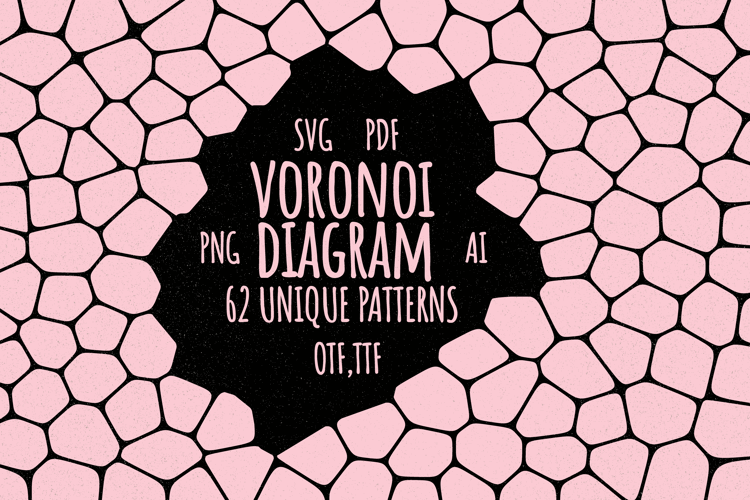
Voronoi Diagram Font
🎨 Font Name: Voronoi Diagram by Minimalist Art Studio
🎨 Font Description: Voronoi Diagram is a cool and unique dingbats font designed to help you generate 62 unique voronoi geometric patterns.